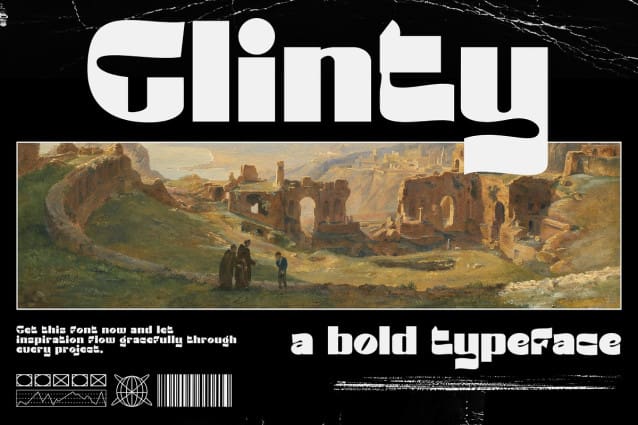
Glinty Display Font
Glinty Display Font is a bold display font designed to make a strong impact with its bold and striking appearance. Ideal for a variety of design projects, this font is perfect for headlines, logo design, posters, and t-shirt designs. With its modern and professional style, “Glinty” is a versatile choice for branding and graphic design needs. Its clean lines and contemporary look make “Glinty” an excellent addition to any creative project.